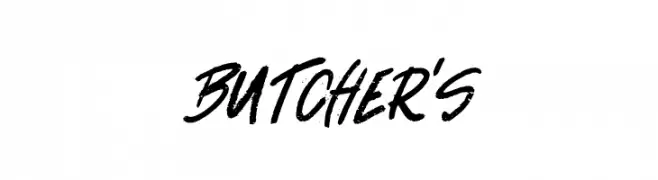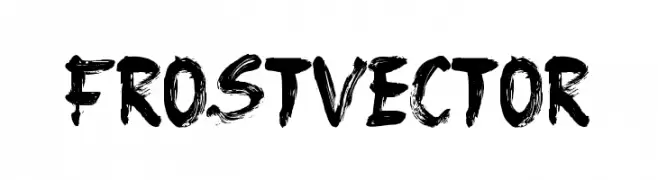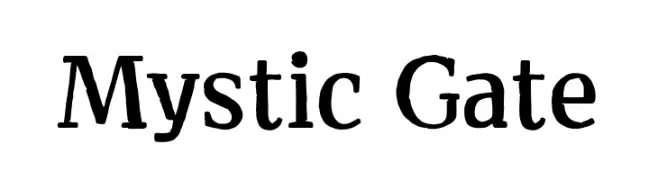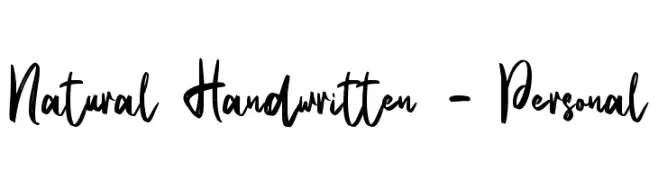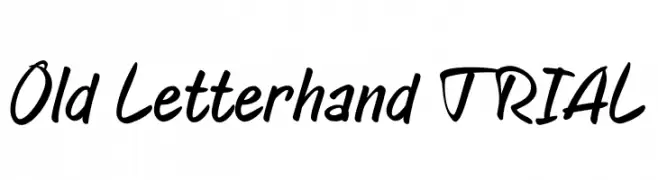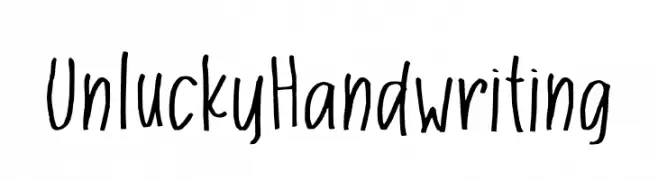
A bold, expressive handwritten font with tall, narrow letterforms and dynamic strokes.
A bold, brushstroke font with a textured, hand-painted appearance.
A fluid and elegant handwritten cursive font with seamless connections.
A bold, rugged font with a vintage, handcrafted feel.
A cursive, handwritten font with smooth, connected strokes and a personal touch.
A classic serif font with a vintage, textured appearance.
A bold, ornate Blackletter font with intricate, angular letterforms.
A playful, casual handwritten font with uneven strokes and a whimsical style.
A bold, brush-style font with a hand-drawn, dynamic appearance.
A bold, natural handwritten font with expressive, fluid strokes.